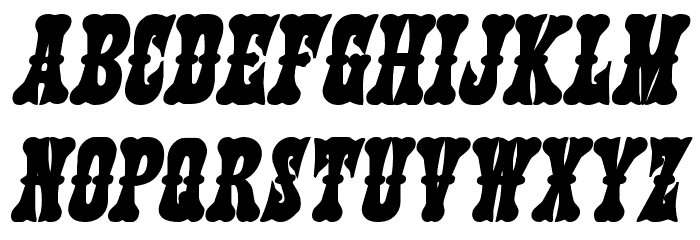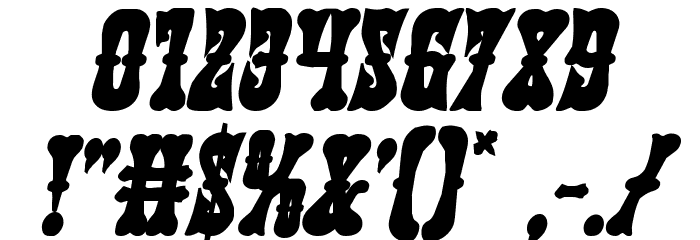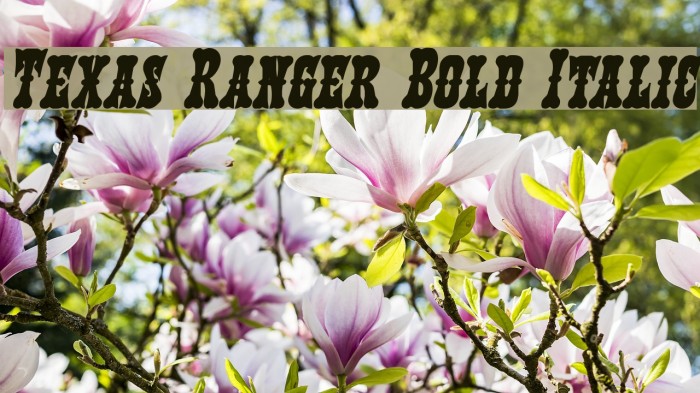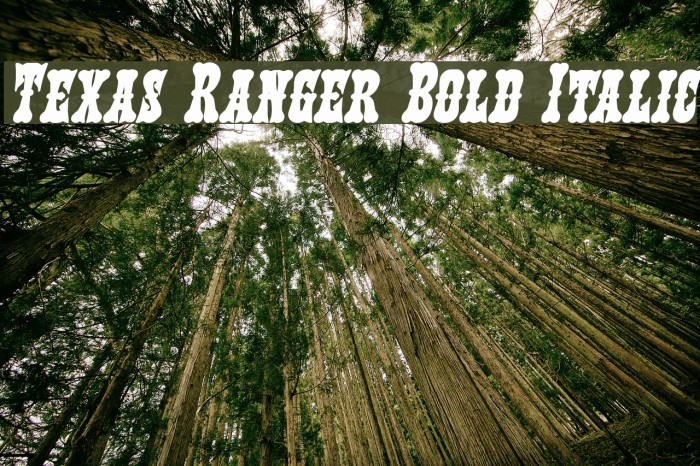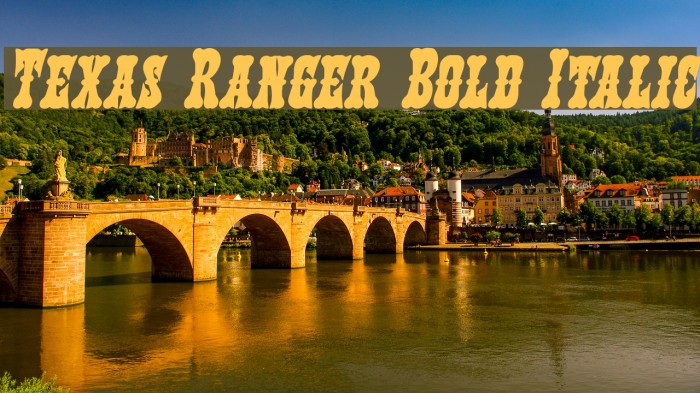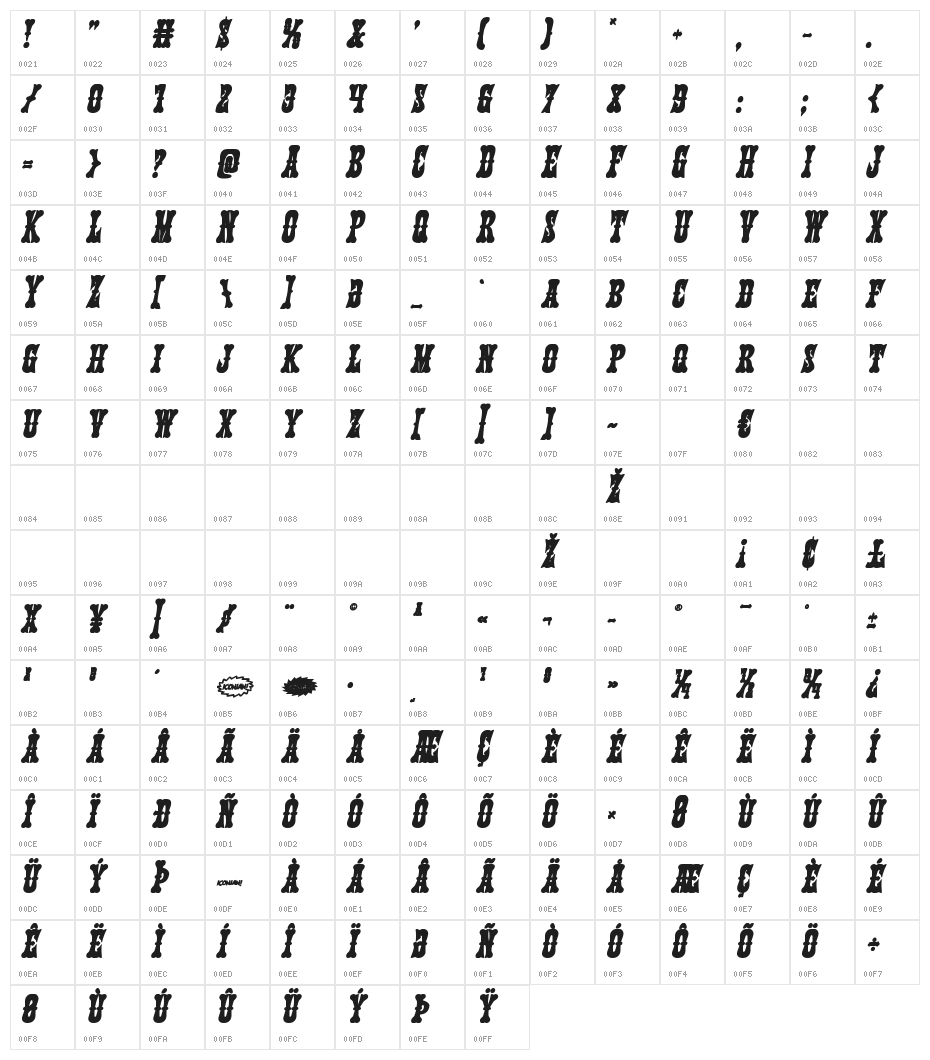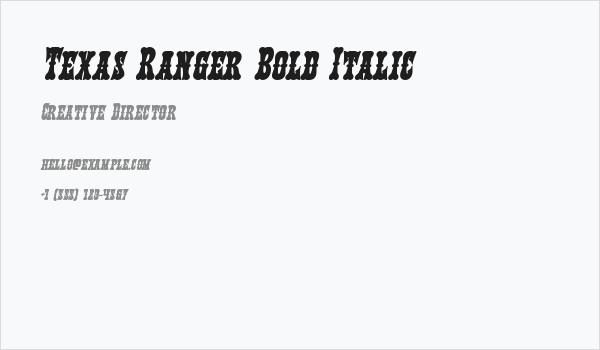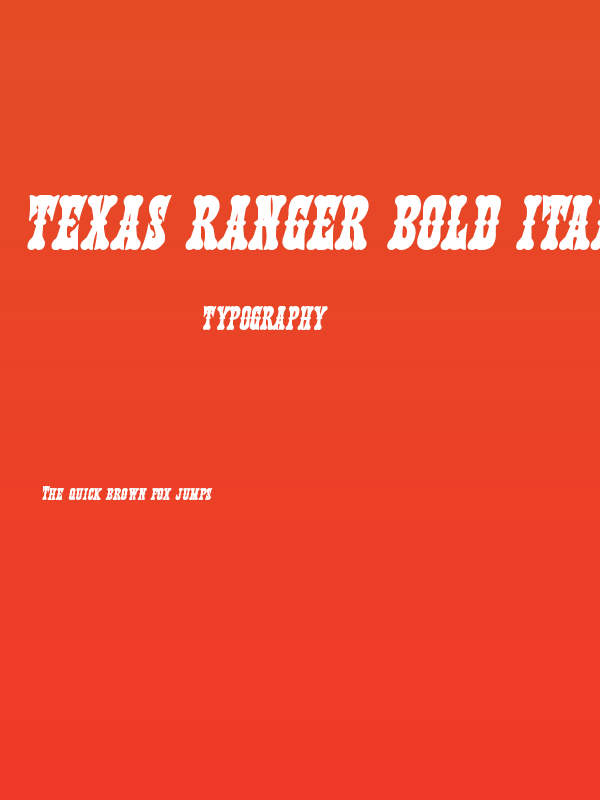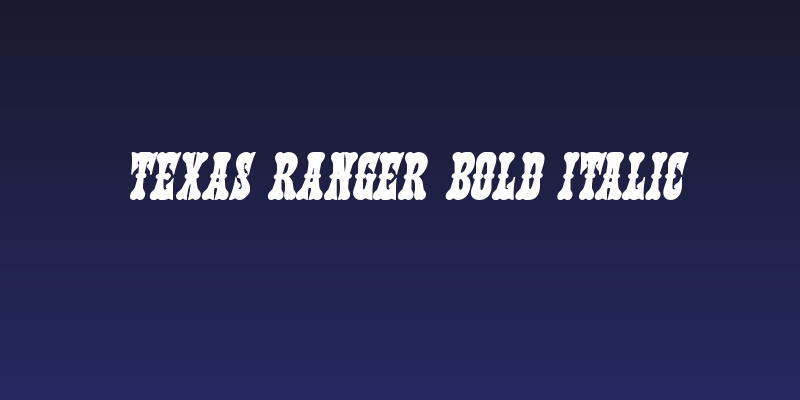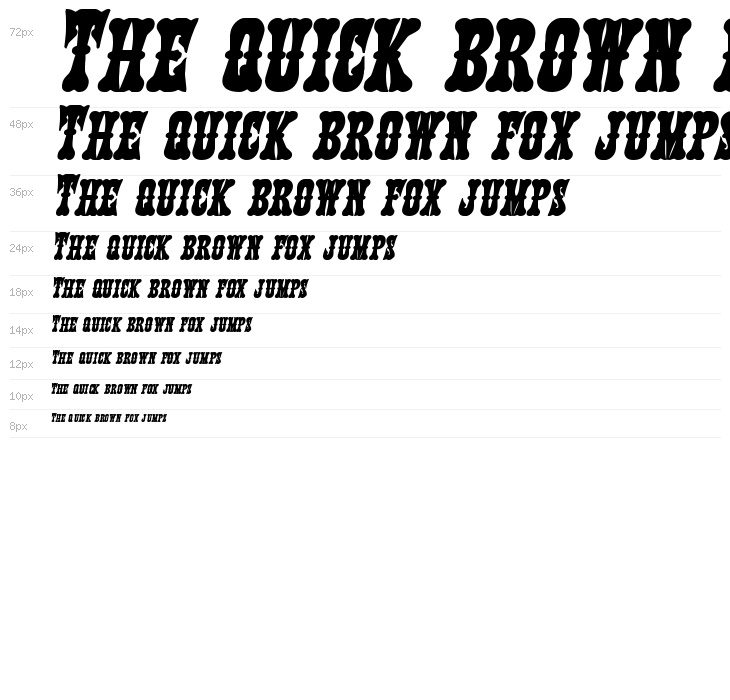
Texas Ranger Bold Italic Font
This font features a bold and italicized style with a strong, impactful presence. The characters are heavily stylized with a decorative flair, reminiscent of vintage Western aesthetics. Each letter is uniquely crafted with thick strokes and intricate detailing, creating a sense of rugged elegance. The uppercase and lowercase letters maintain a consistent design, while the numbers and special characters complement the overall theme. This font is ideal for projects that require a bold statement and a touch of nostalgia.
A bold, italicized decorative font with a vintage Western style.
- Proposed Projects: Perfect for posters, branding, logos, and themed event invitations that require a bold, vintage Western aesthetic.
- Overall Style: Vintage